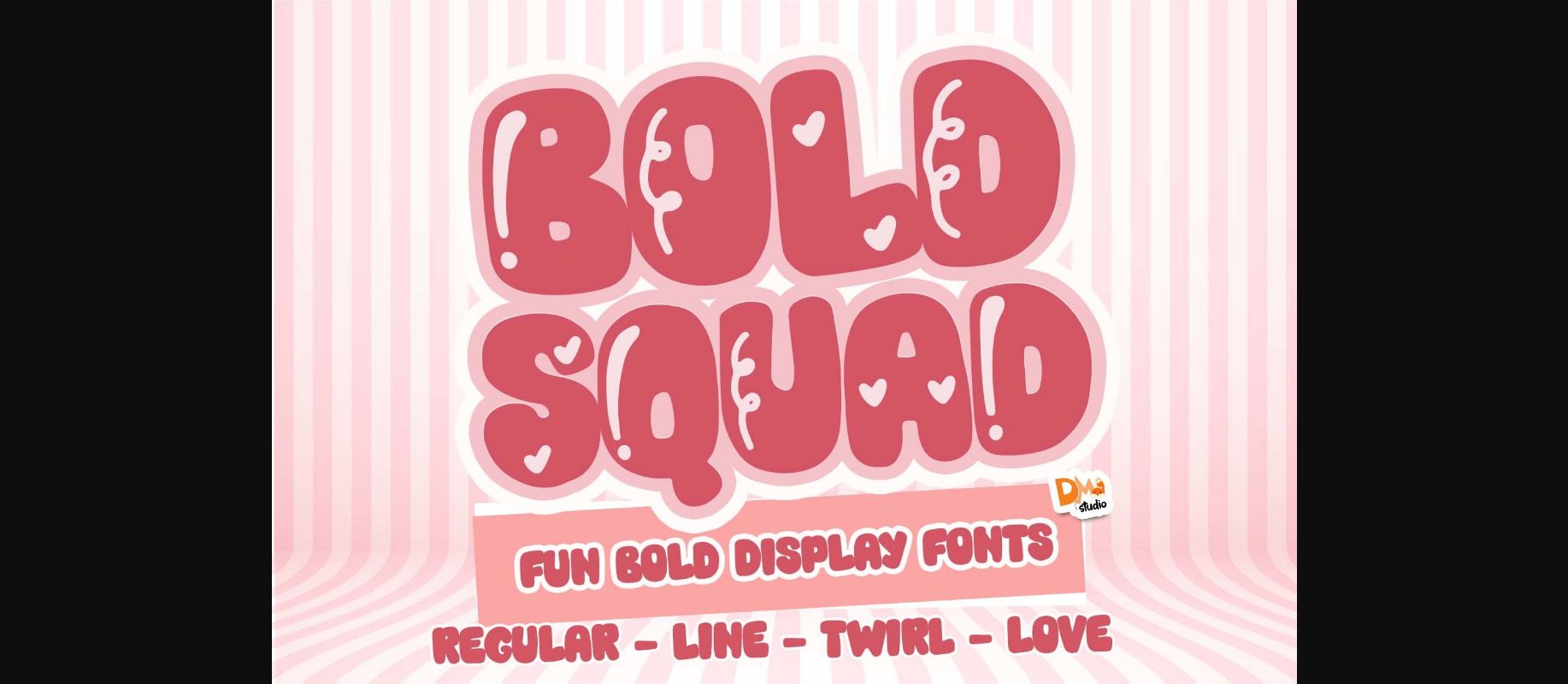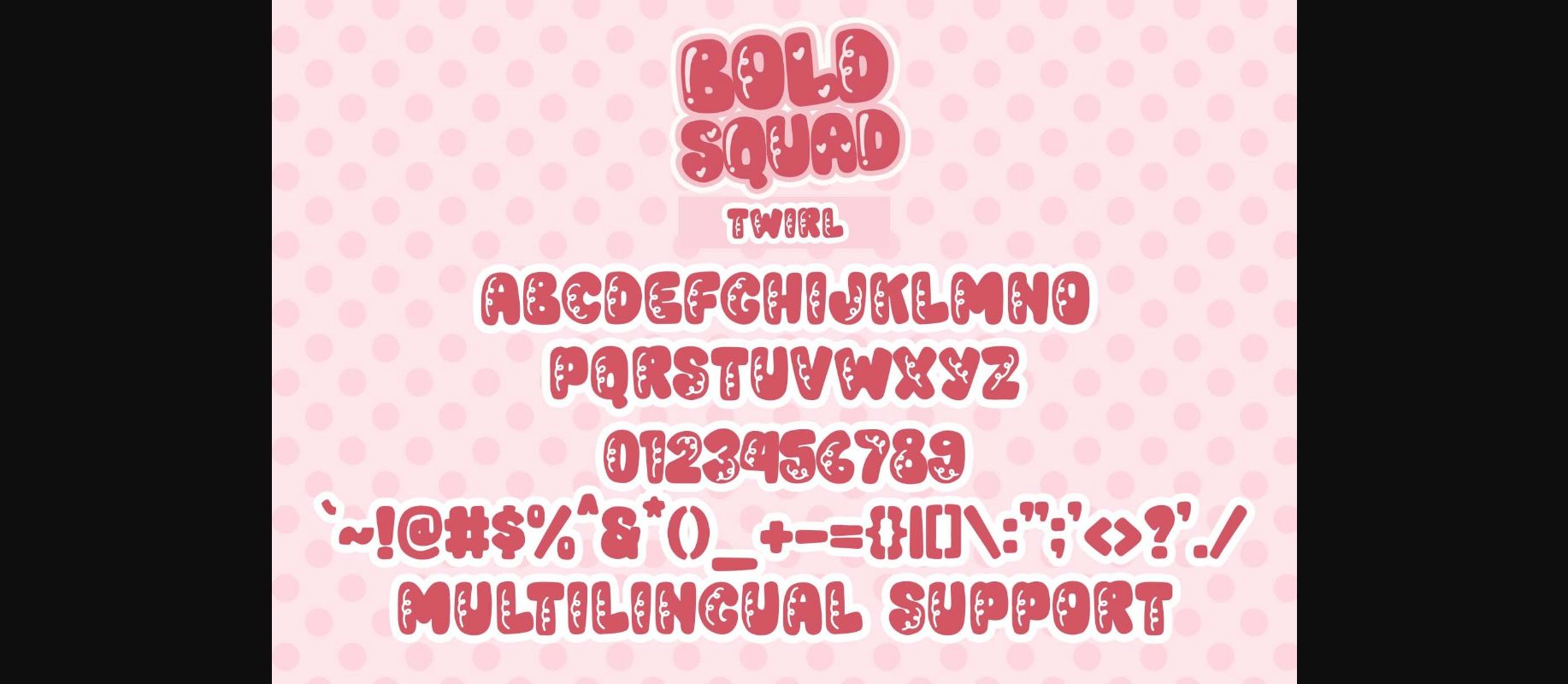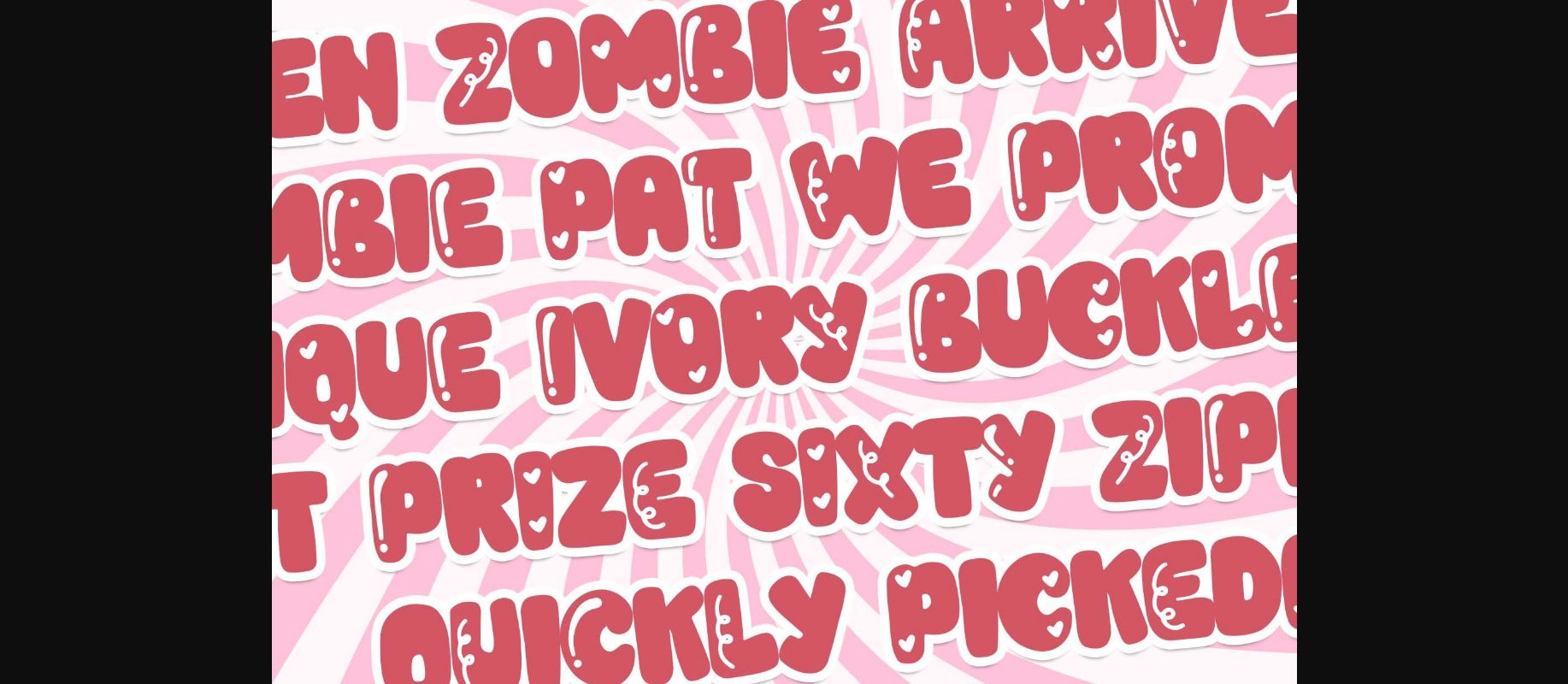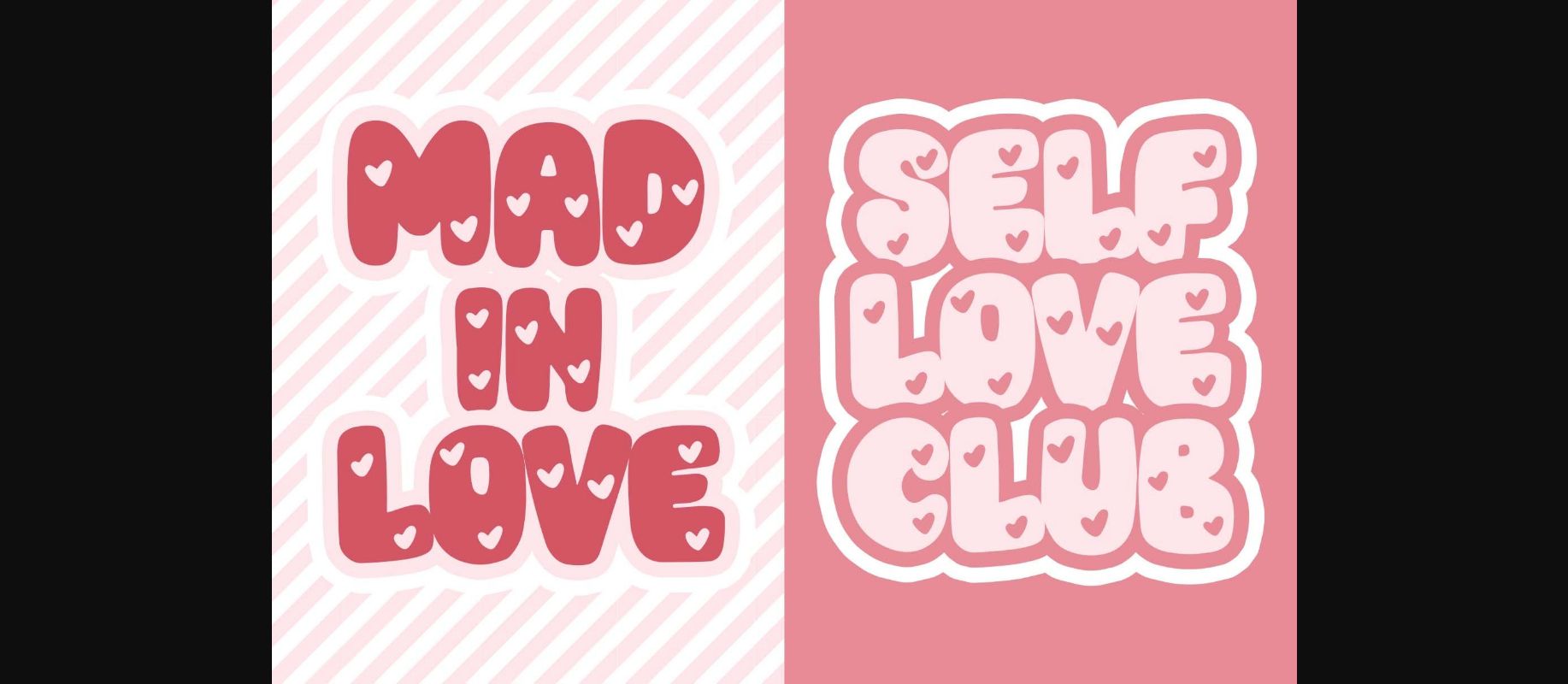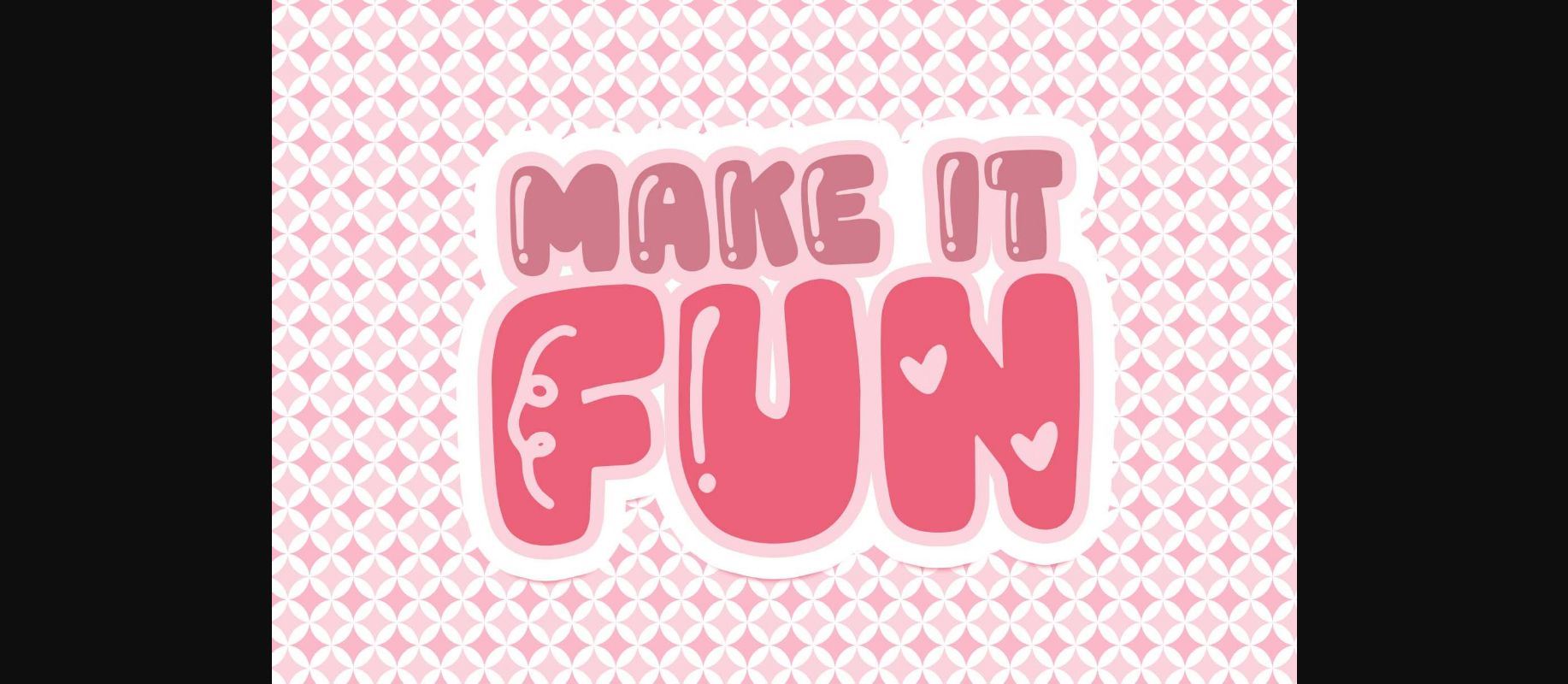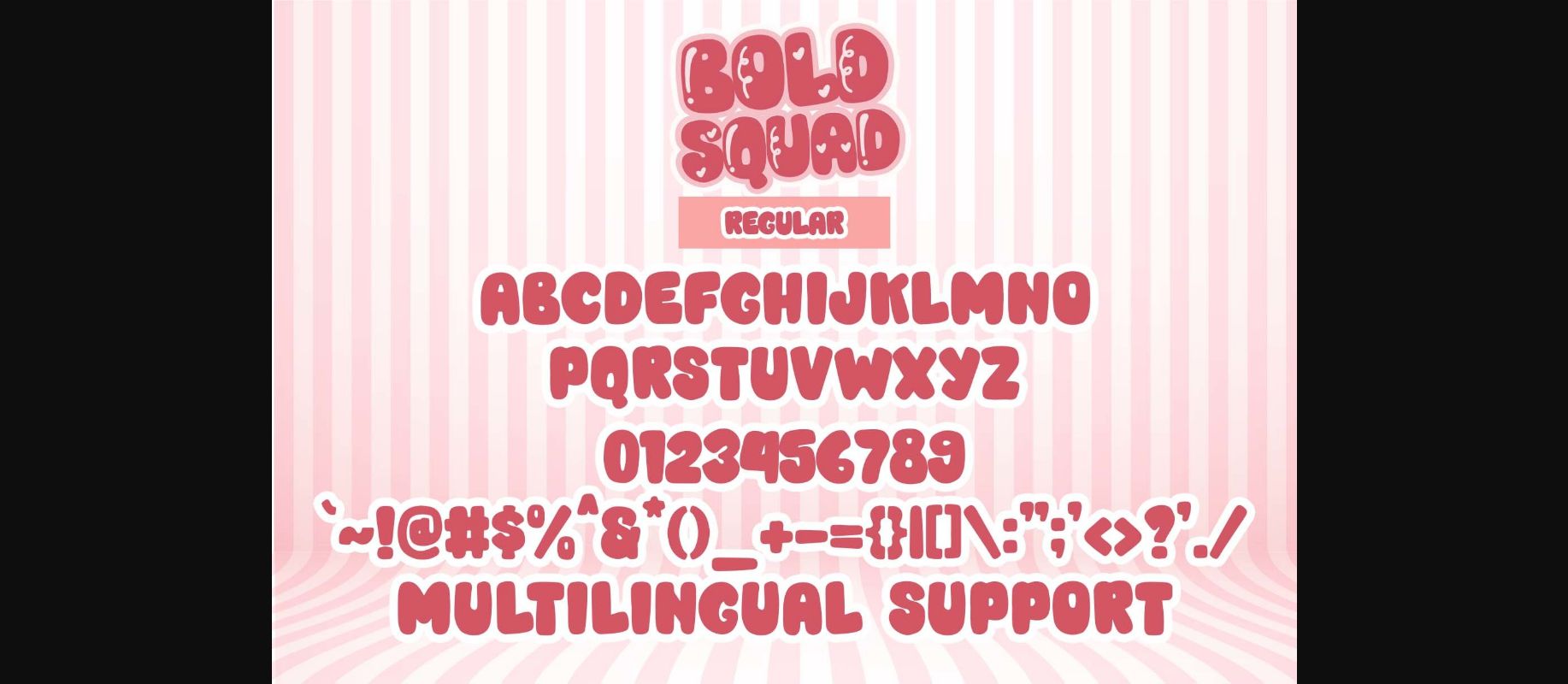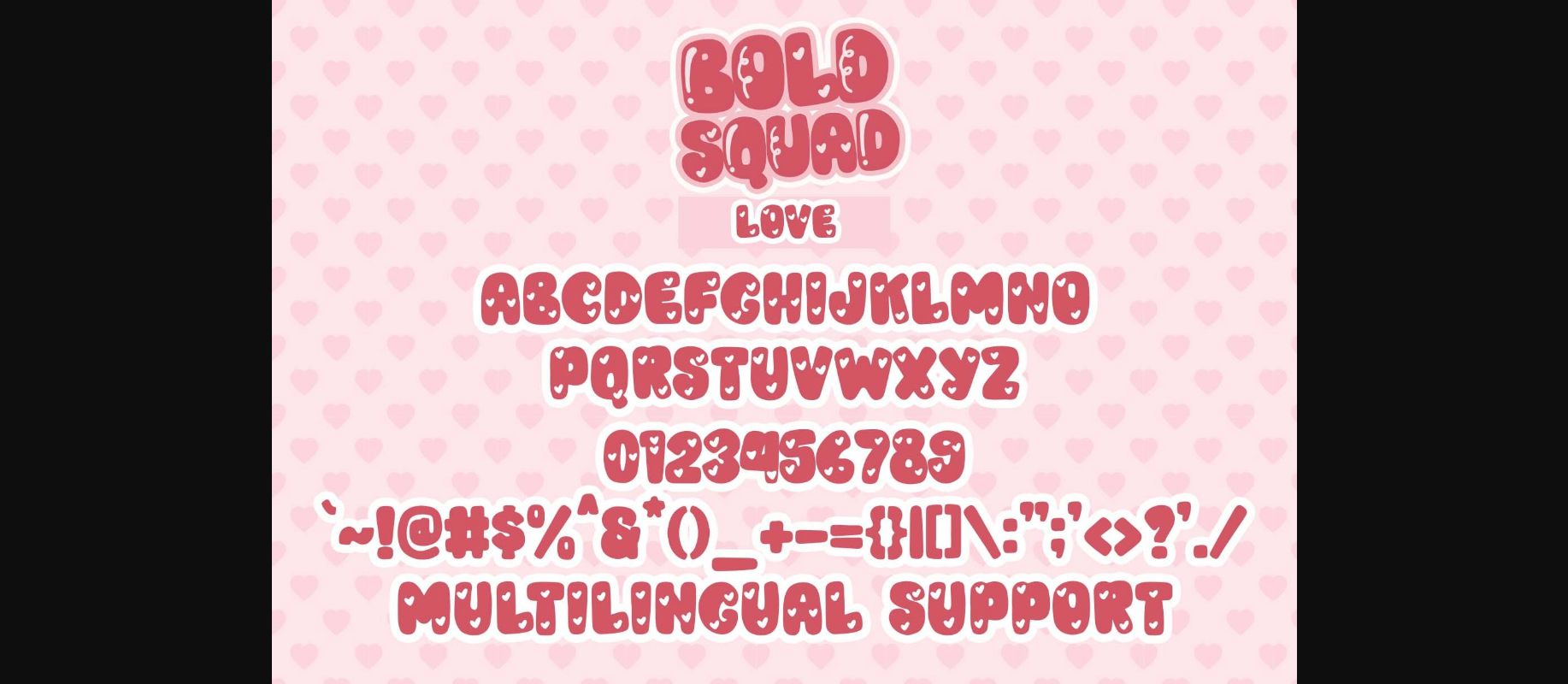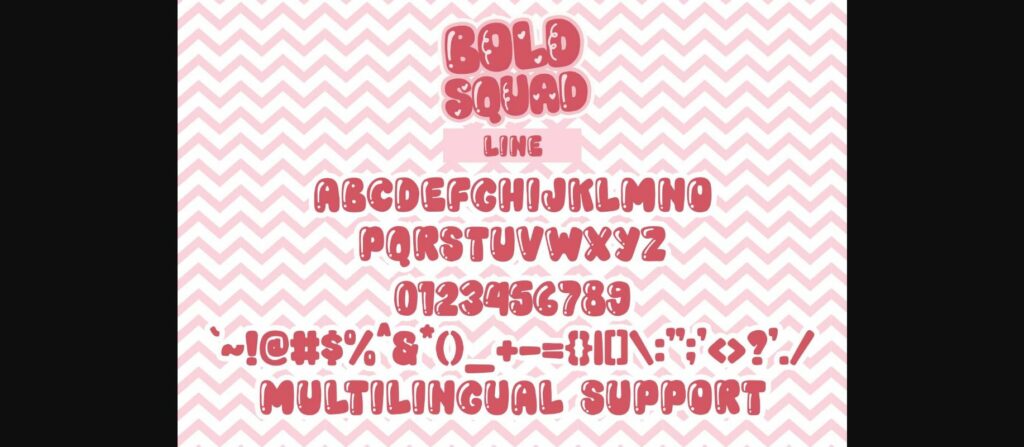
Bold Squad Font
About Bold Squad Font
Bold Squad is a collection of four bold display fonts. It’s fun, comical, and versatile for all of your projects.